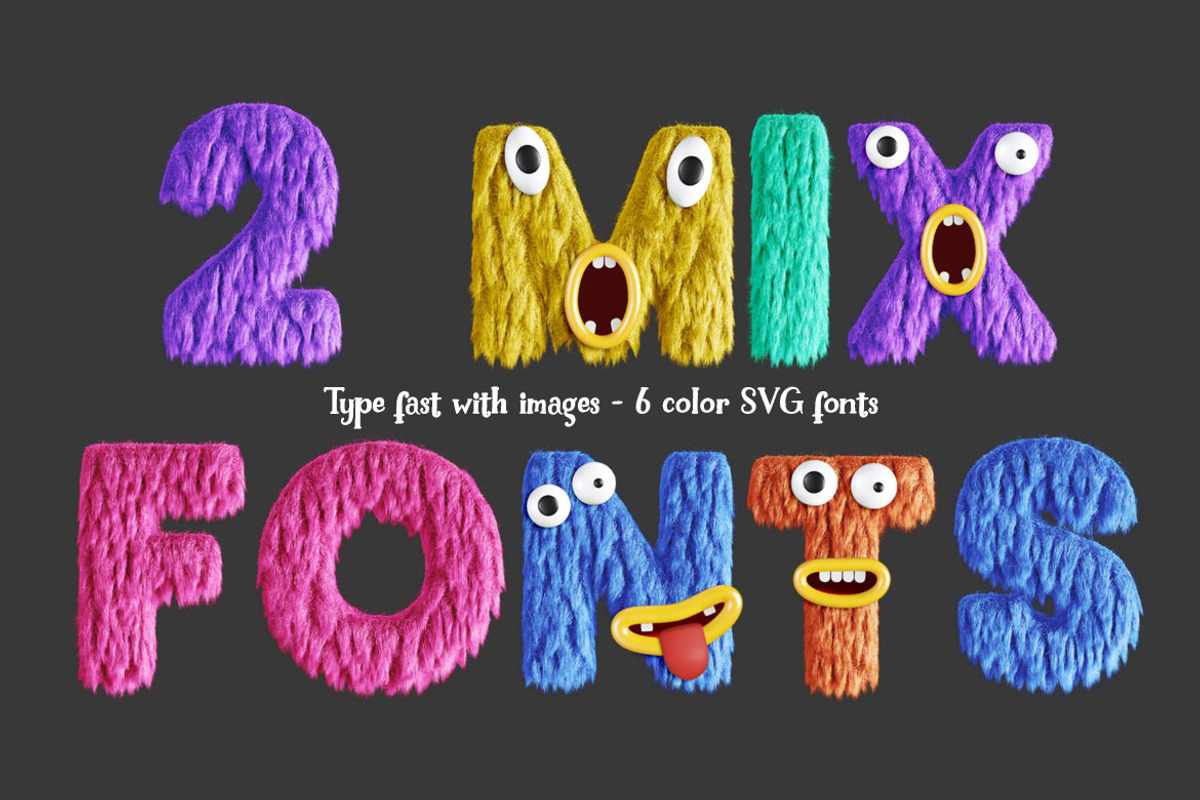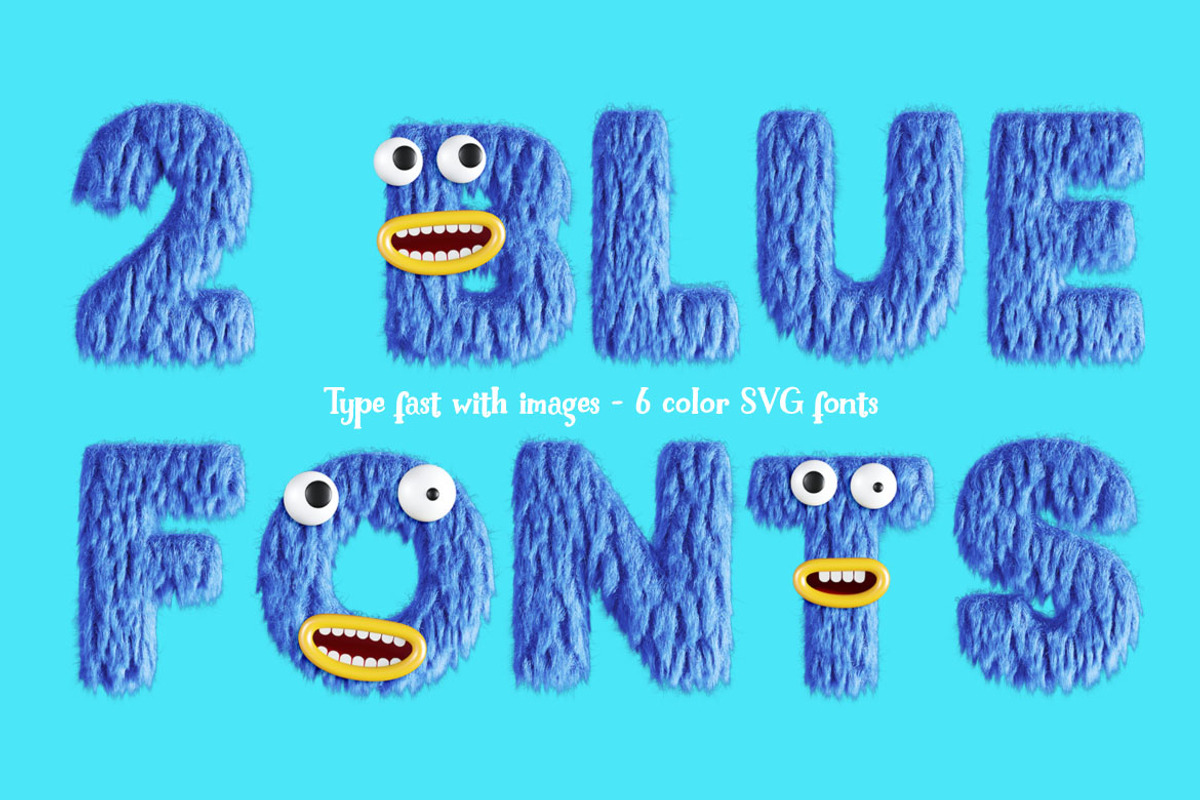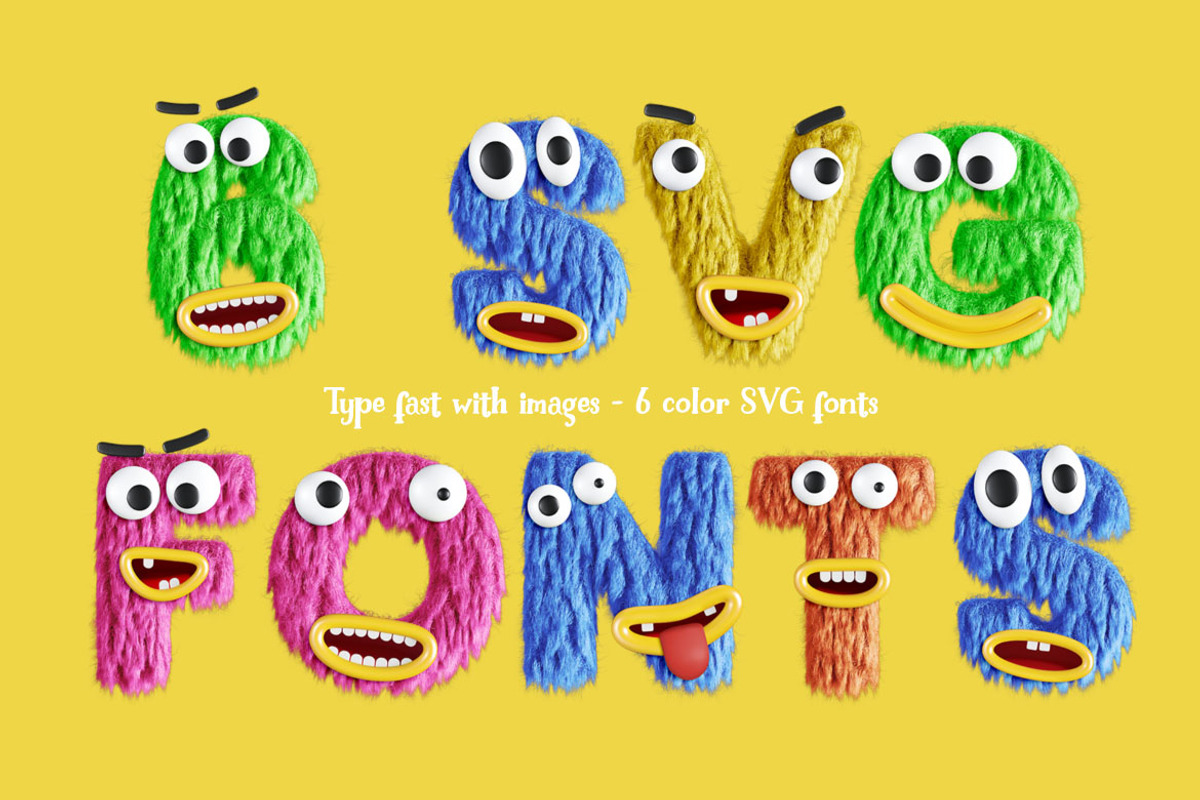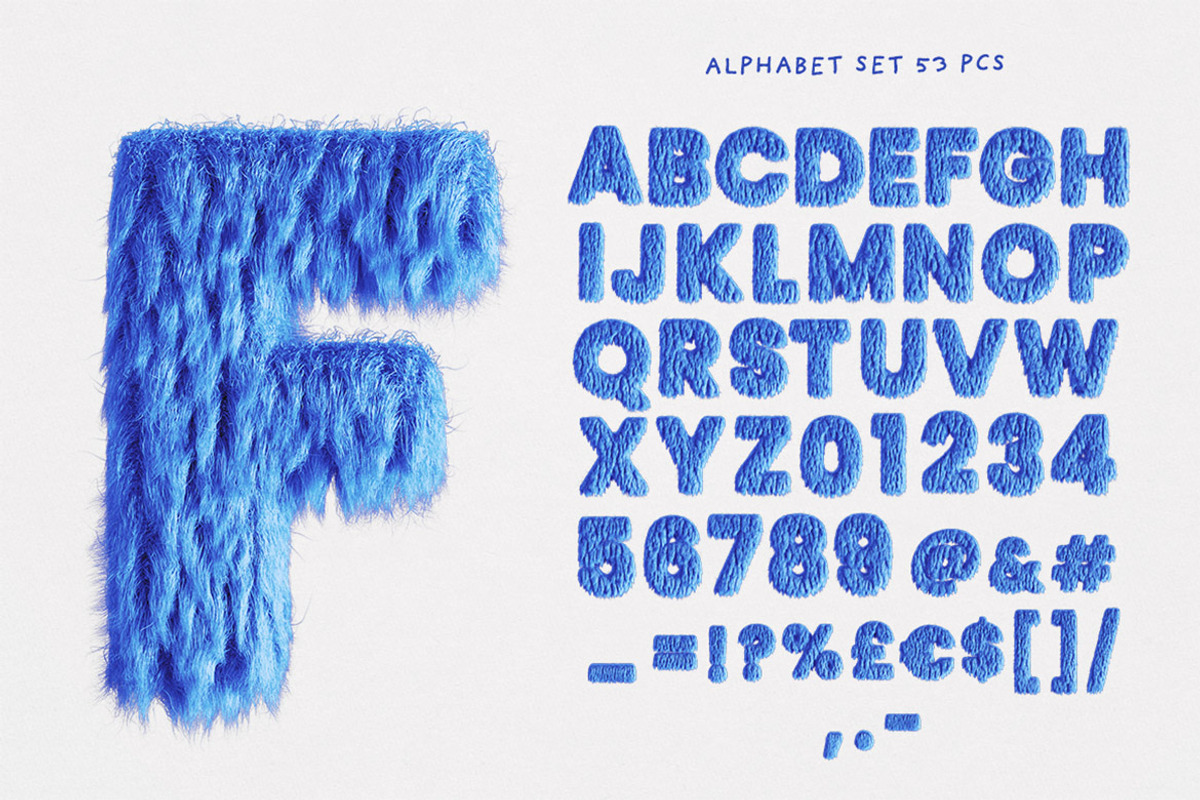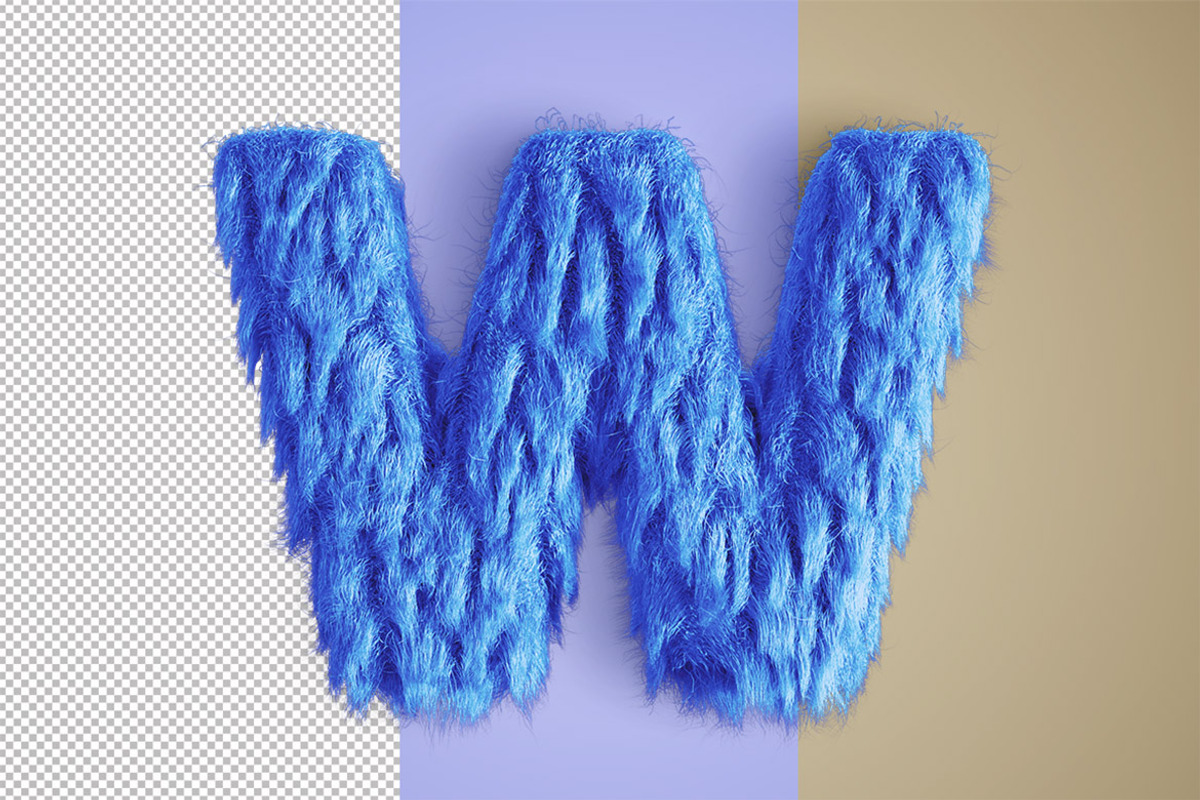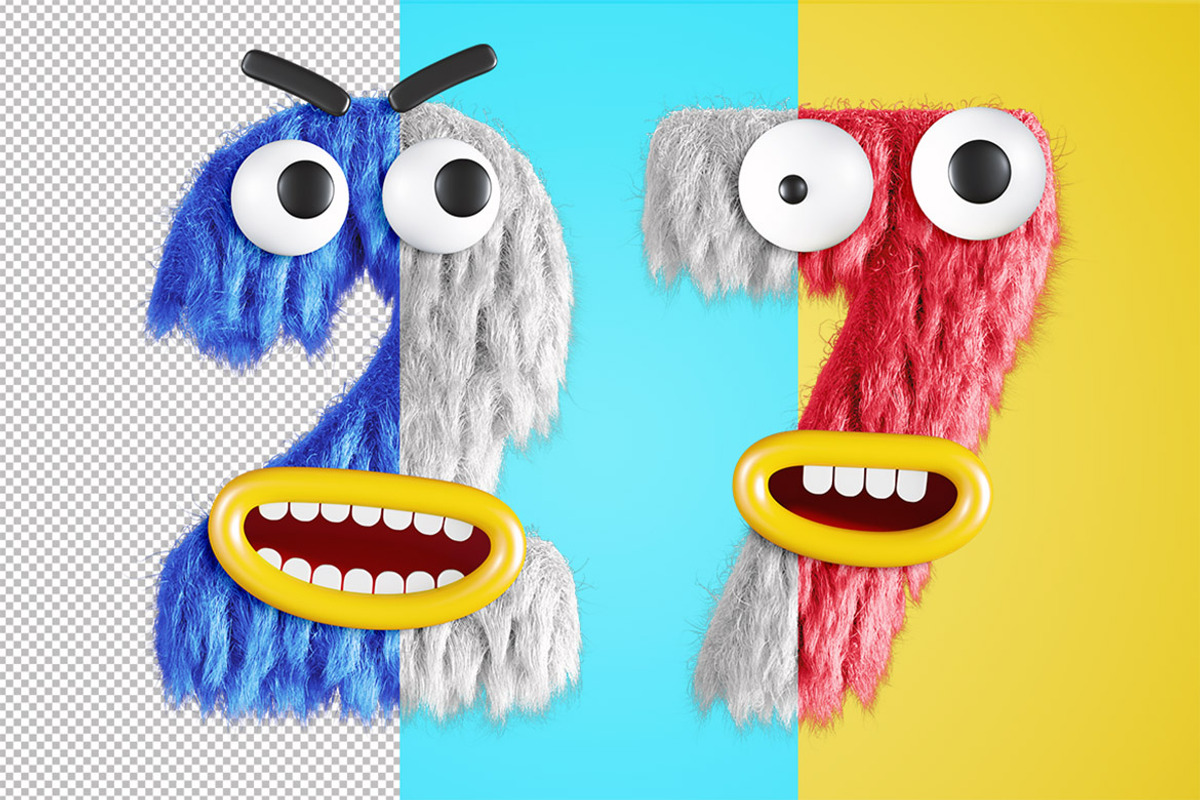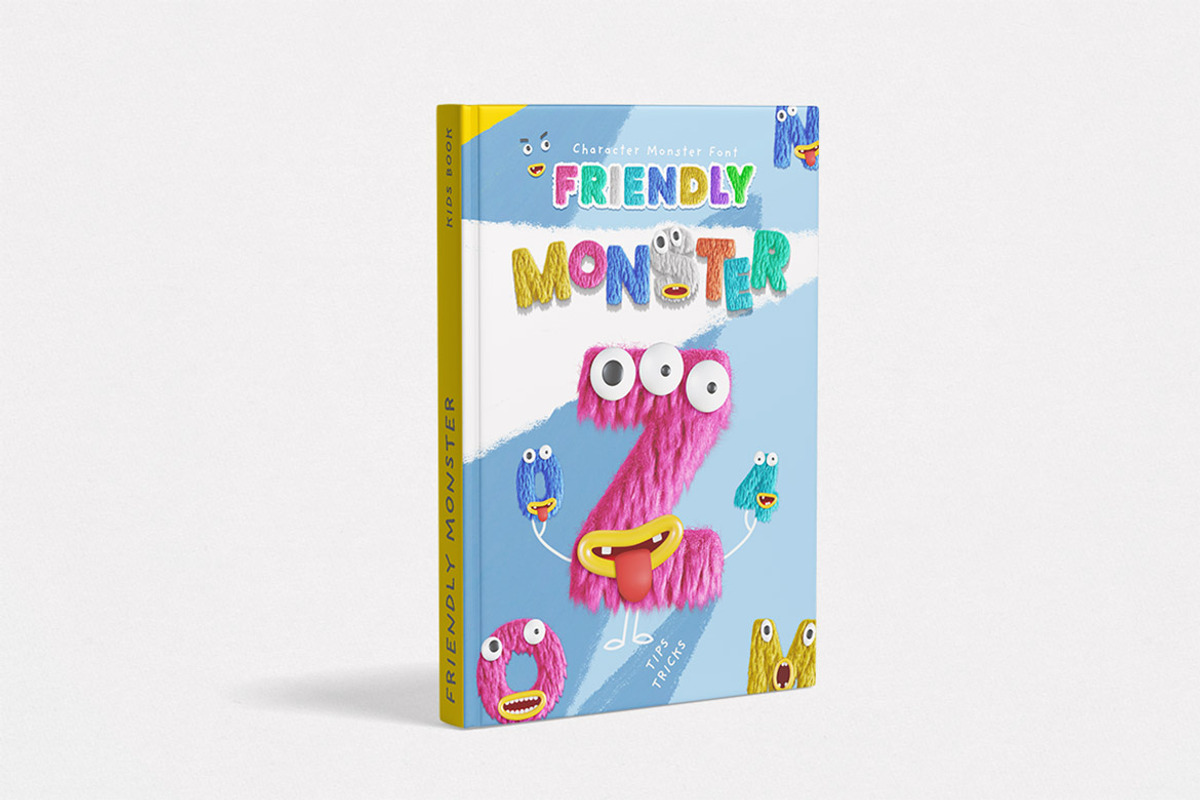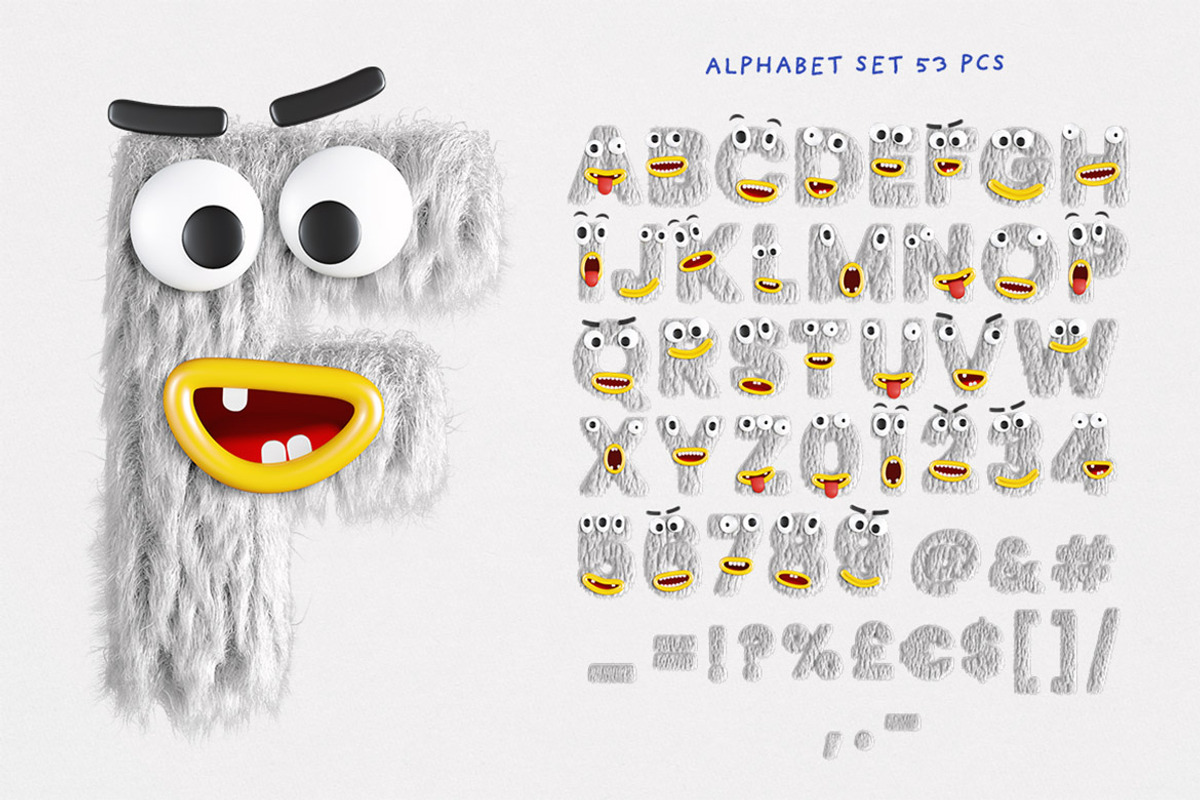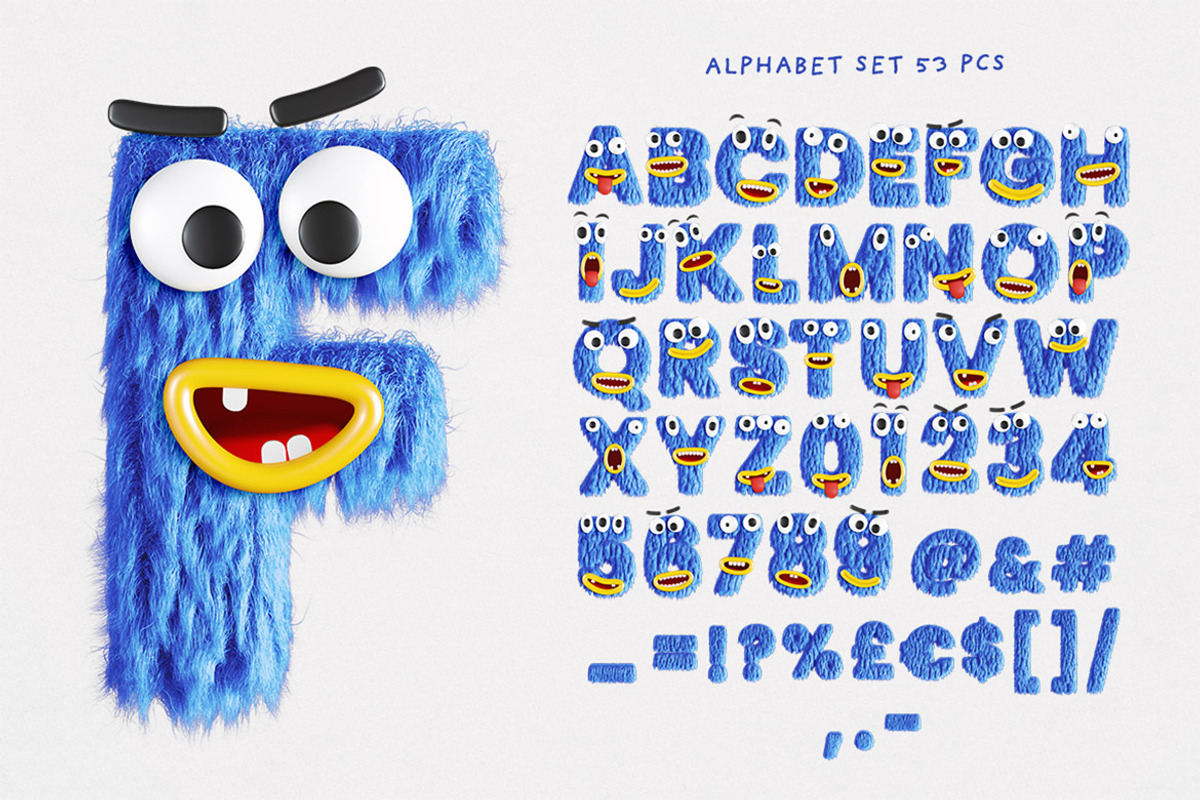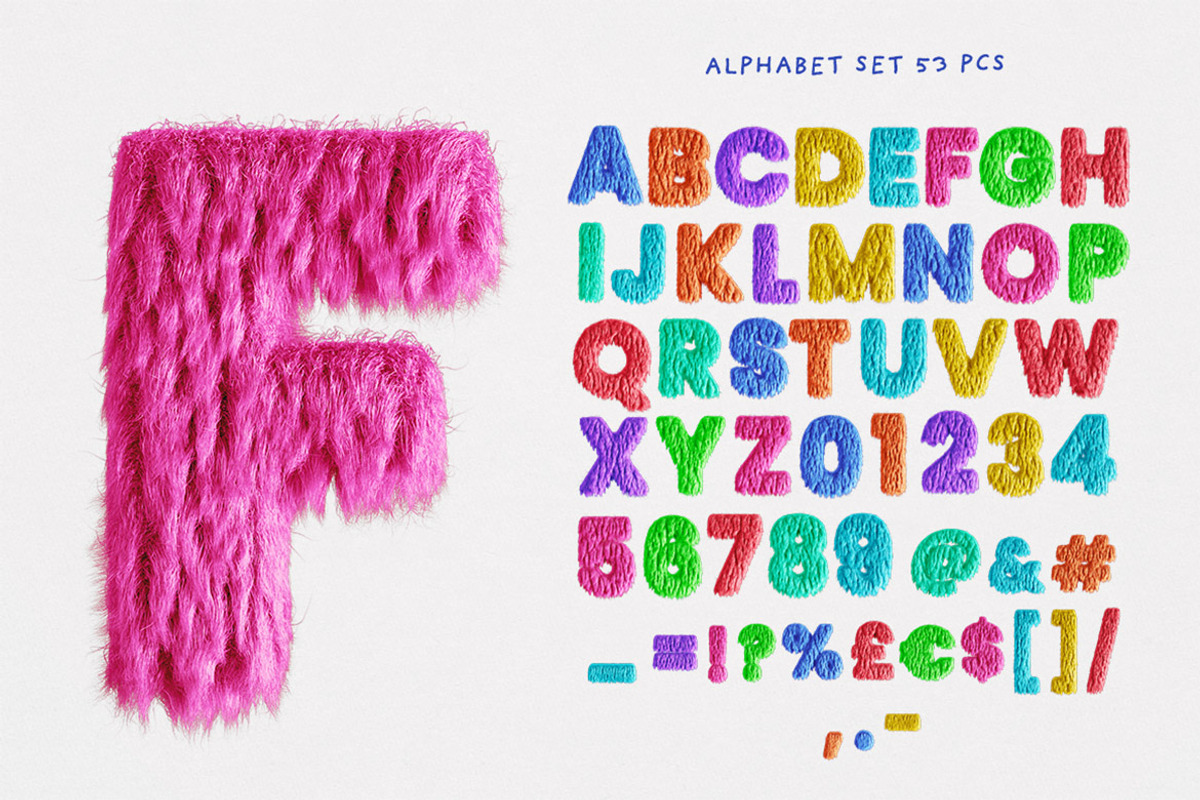
Friendly Monster SVG & PNG Fonts
Super creative, cute, playful & funny graphic PNG alphabets & 6 color SVG fonts. If you need to create original & happy artwork for your kids in minutes you need to check this bundle! All these PNG graphics are hi-res so really great for any print or web projects. Color SVG fonts are better for smaller resolution projects. Great for original print design, banner, social media post or any graphic promotion ;) Please check all preview images.
- transparent PNG images with mosnter faces (also few bonus faces are included)
- create your own alphabet - you can place any from included faces on any clean lettering set (color mix, blue or white)
- re-color your own alphabet - it's very easy to change color on any clean lettering set (color mix, blue or white)